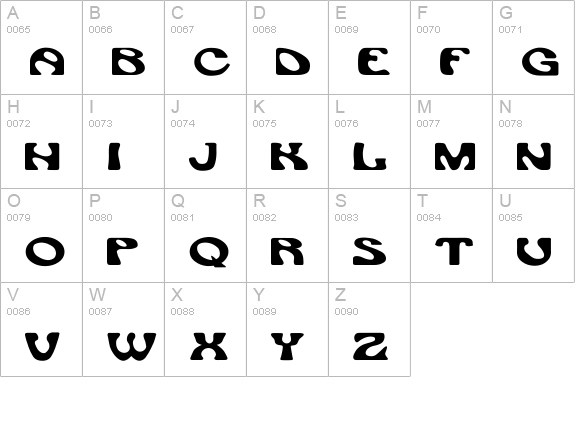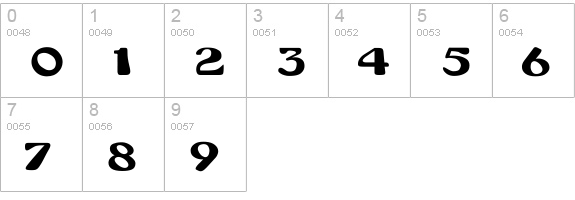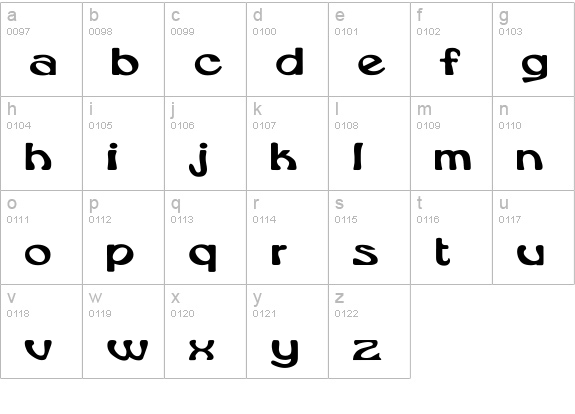
Rsdaytona Wd Font Details
Introducing Rsdaytona Wd font - a modern and stylish typeface that is perfect for adding a touch of elegance to your design projects. With its sleek lines and contemporary feel, Rsdaytona Wd font is sure to make a statement. This versatile font is ideal for a wide range of applications, from branding and advertising to web design and social media graphics. The best part? Rsdaytona Wd font is completely free to download at FontsMarket.com. Simply visit the website and start using this stunning font in your projects today. Whether you're a graphic designer, a blogger, or a business owner looking to elevate your brand, Rsdaytona Wd font is the perfect choice. Download it now and let your creativity shine with this beautiful and free font option.